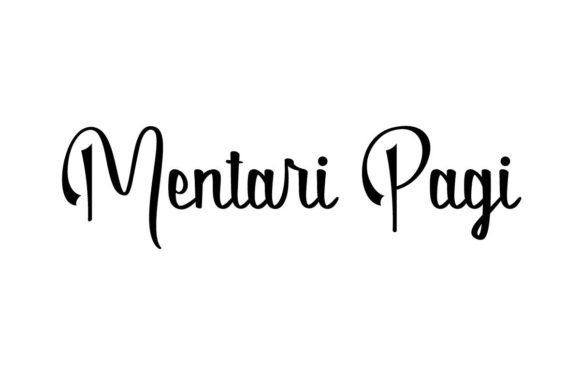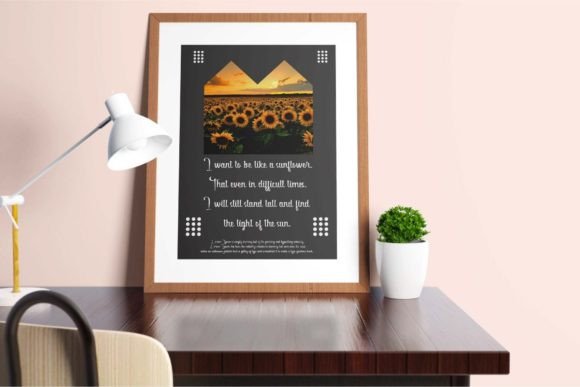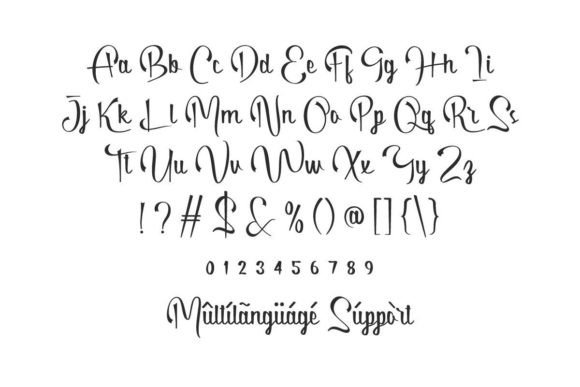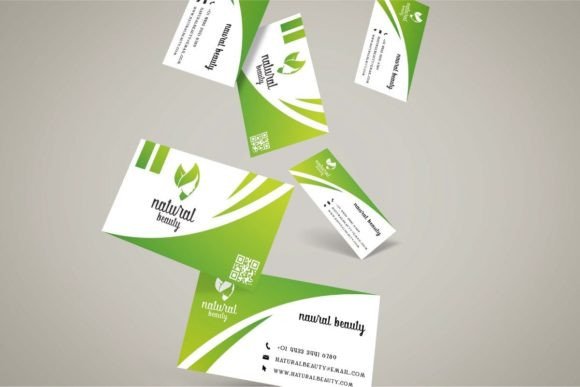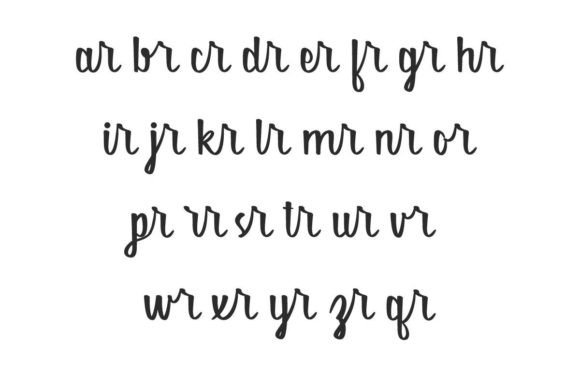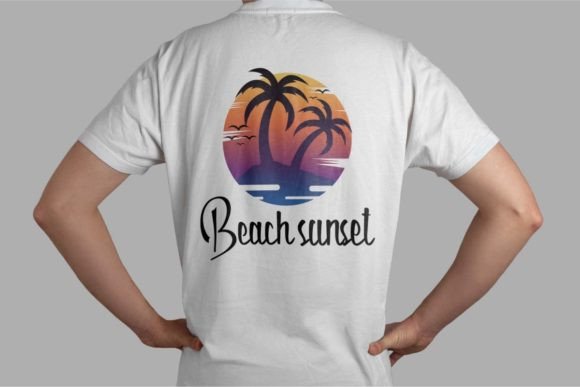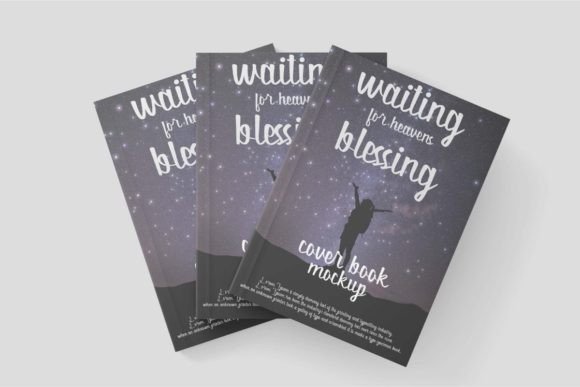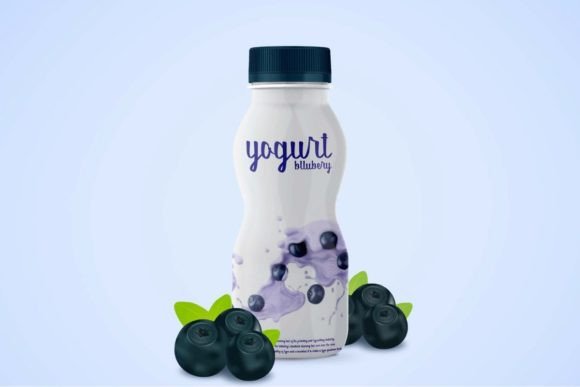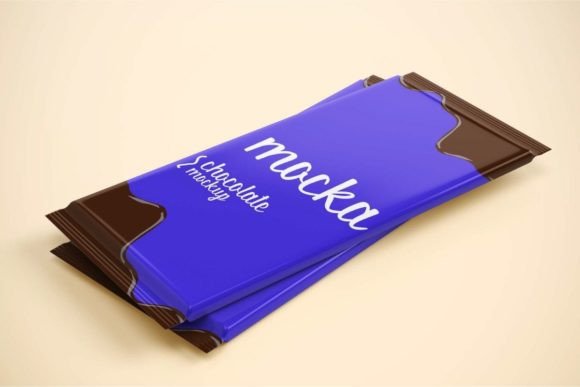
Mentari Pagi Font
About Mentari Pagi Font
“Mentari Pagi Font” is a charming handwritten typeface designed to bring an authentic and genuine feel to your designs. With its natural and fluid strokes, this font adds a touch of warmth and personality to various design projects. “Mentari Pagi Font” is versatile and well-suited for a range of business categories, including weddings, events, cosmetics, homeware, florists, cafes/restaurants, and more.
The authentic and handwritten nature of “Mentari Pagi Font” makes it particularly fitting for a variety of applications. Whether you’re designing book covers, headlines, logo branding, social media graphics, or other creative elements, this font contributes to a stunning and personalized aesthetic.
The versatility of “Mentari Pagi Font” allows it to adapt to different design contexts, making it a valuable asset for a wide range of projects. Its friendly and approachable style enhances the overall visual appeal, making it suitable for conveying various brand messages.
In summary, “Mentari Pagi Font” is more than just a font; it’s a design element crafted to infuse authenticity and charm into your projects. Whether you’re working on branding, social media, or other creative endeavors, let this handwritten typeface be the key to creating stunning and genuine works that resonate with your audience.